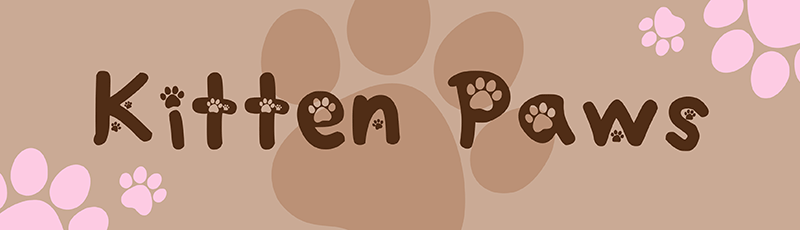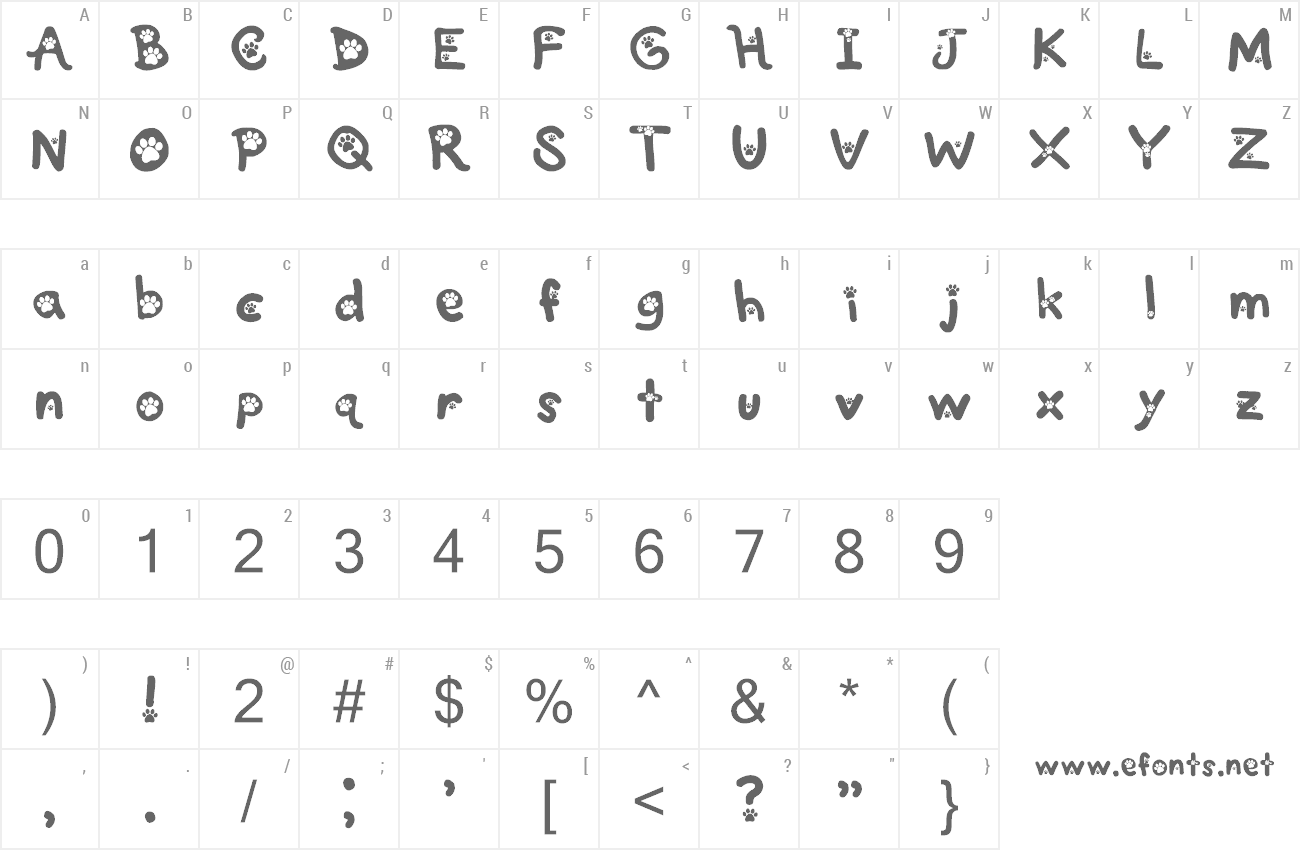
Font name: | Kitten Paws |
Author: | Yohanah Luchi |
Note by Yohanah Luchi | |
This font was made inspired on Cat Paws font and a modified handwritten font. It's made for everyone that can't pay for the Cat Font and need something similar to it. |